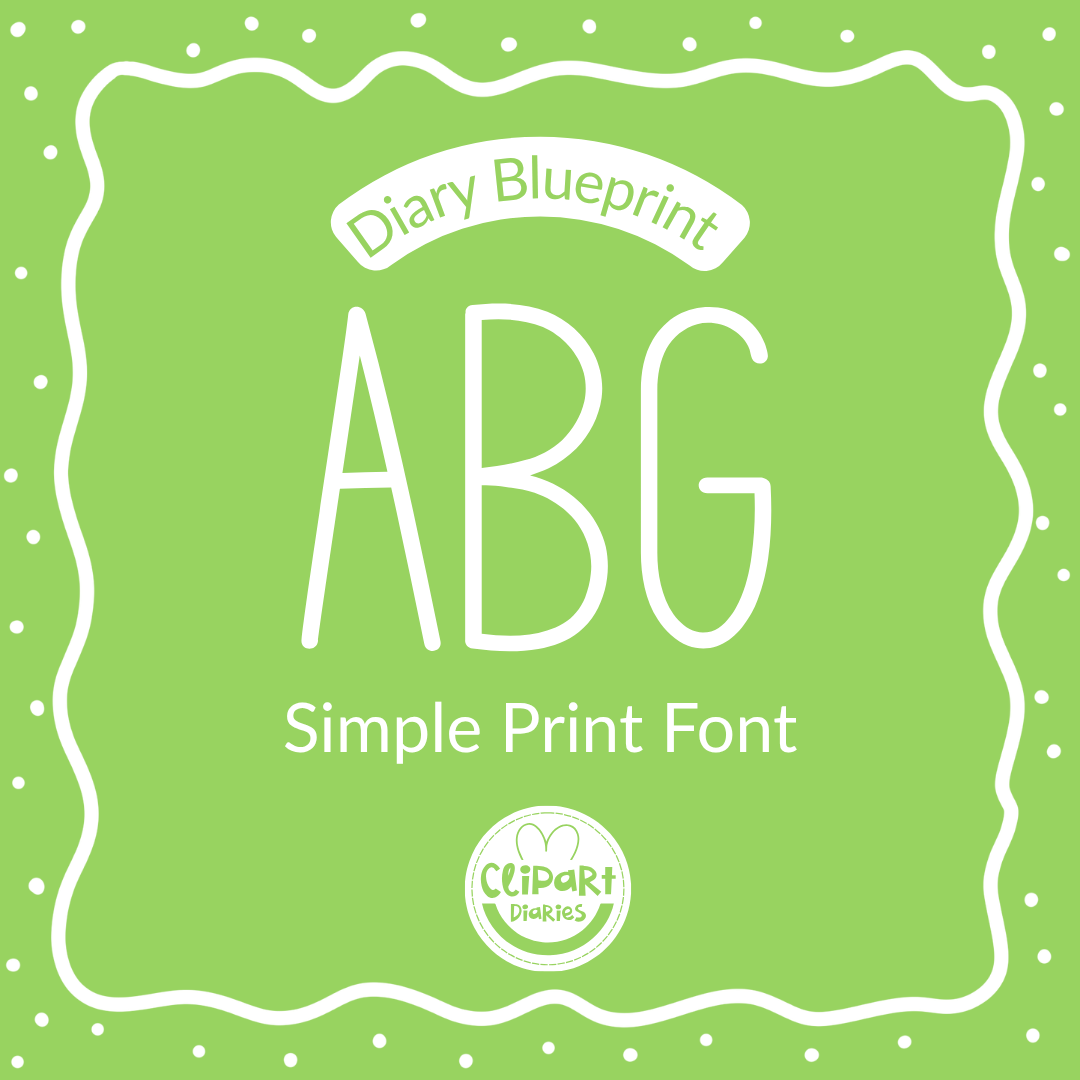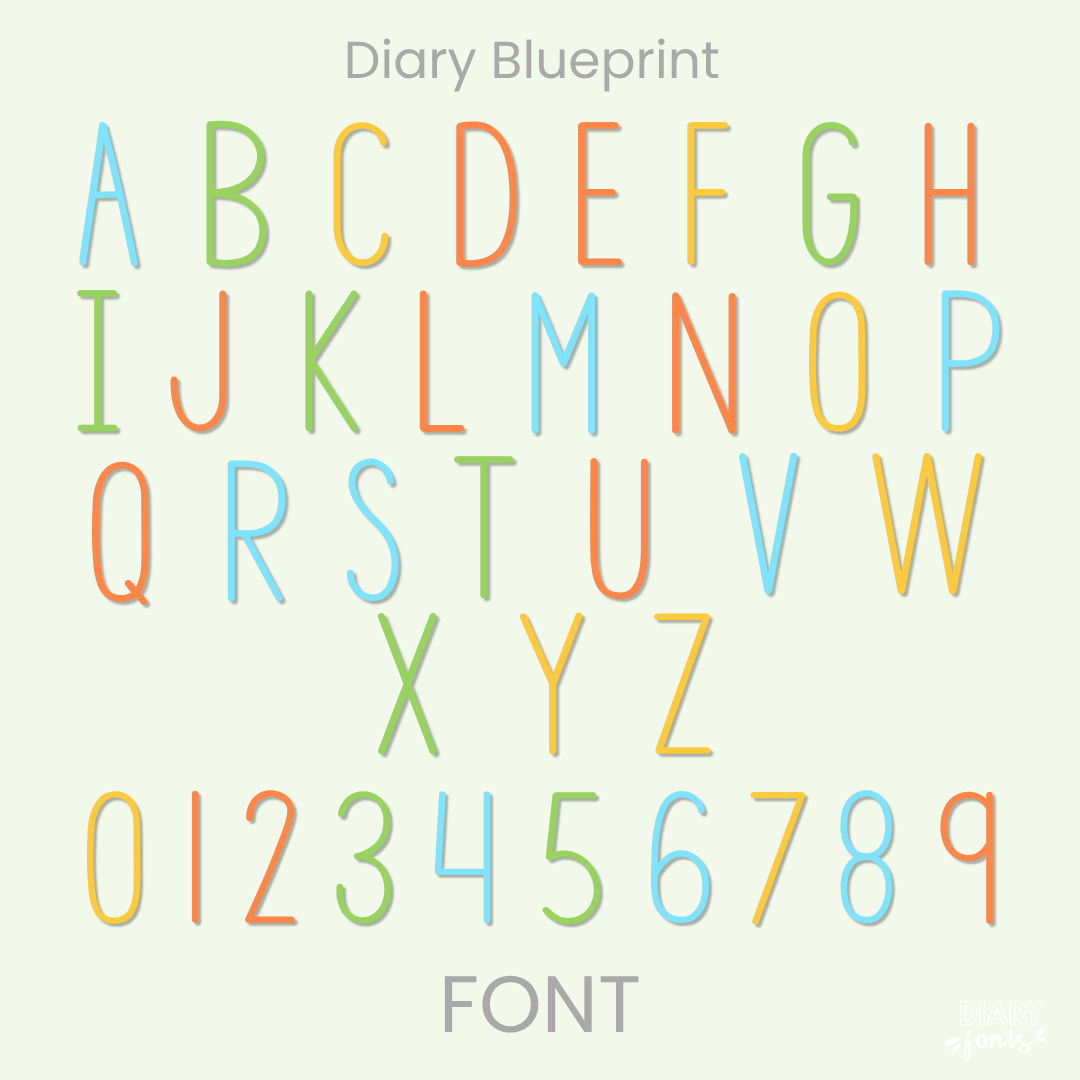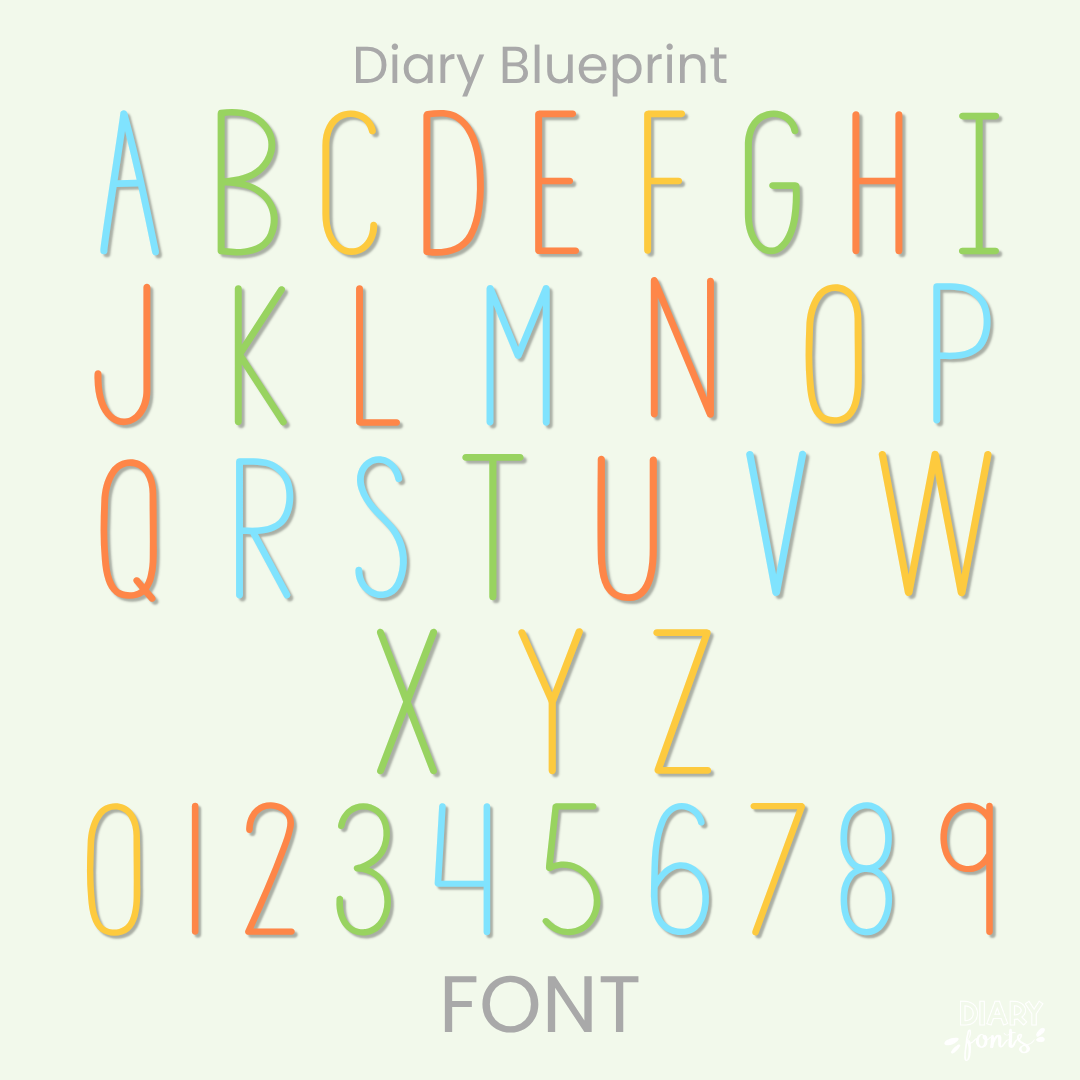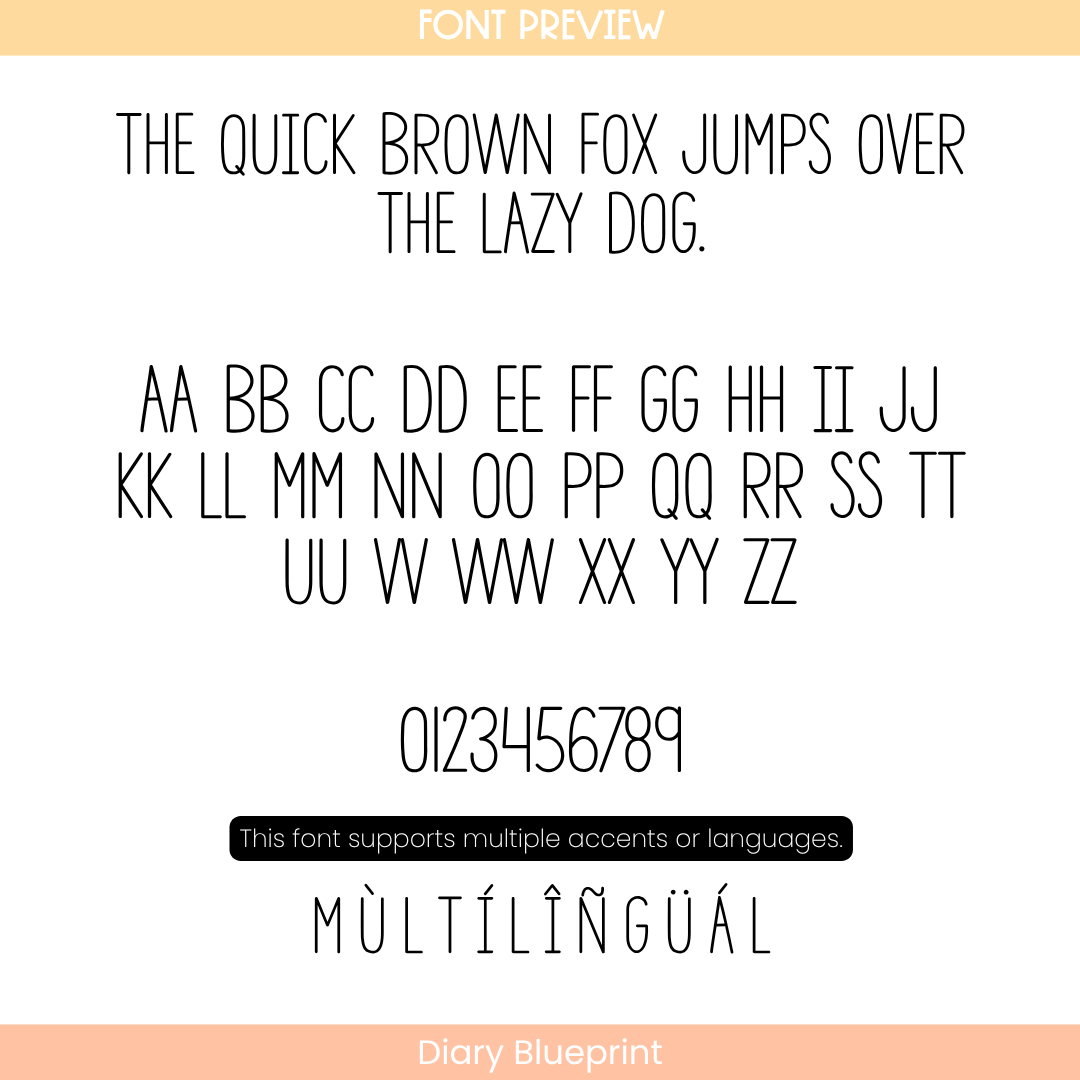
Streamline your creative designs with Diary Blueprint, a simple print font that offers the perfect balance of hand-drawn charm and professional architectural precision. This font is specifically crafted to mimic the clean, legible style of architectural lettering, making it a standout choice for organized and technical projects. Featuring a full set of uppercase and lowercase letters, numbers 0–9, and multi-language support, it is a reliable tool for global educational resources. It is optimized for seamless compatibility with Canva, MS Office, and Adobe Apps, as well as iPad tools like GoodNotes and Procreate. Whether you are creating technical worksheets, STEM resources, or clean digital planners, Diary Blueprint provides a polished, professional aesthetic that is ideal for both personal and commercial use.
Diary Blueprint Font – Architectural Font
The Diary Blueprint is a clean, structured print font designed to capture the precise look of an architect’s handwriting for your digital resources and classroom materials.